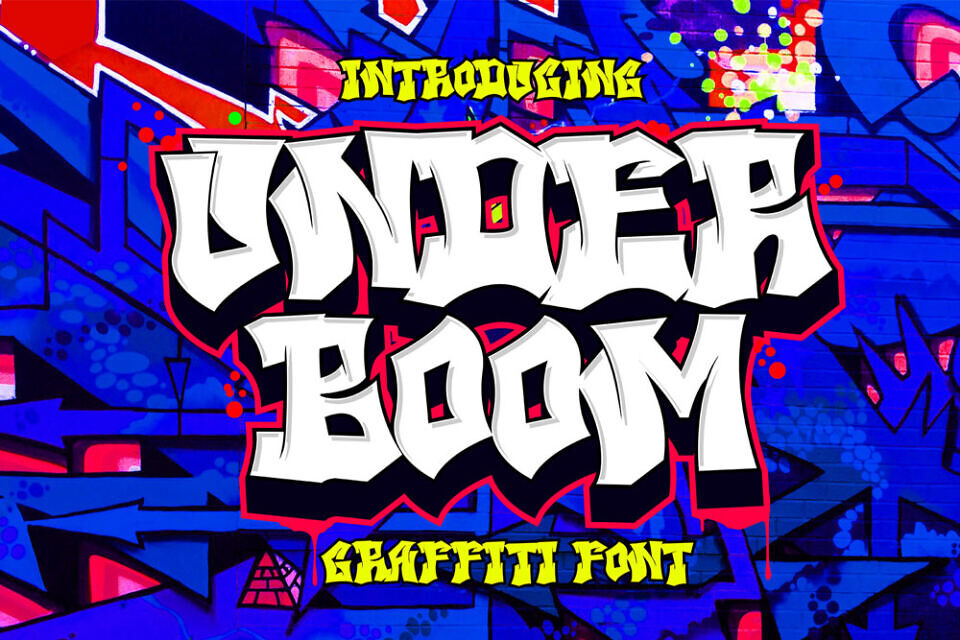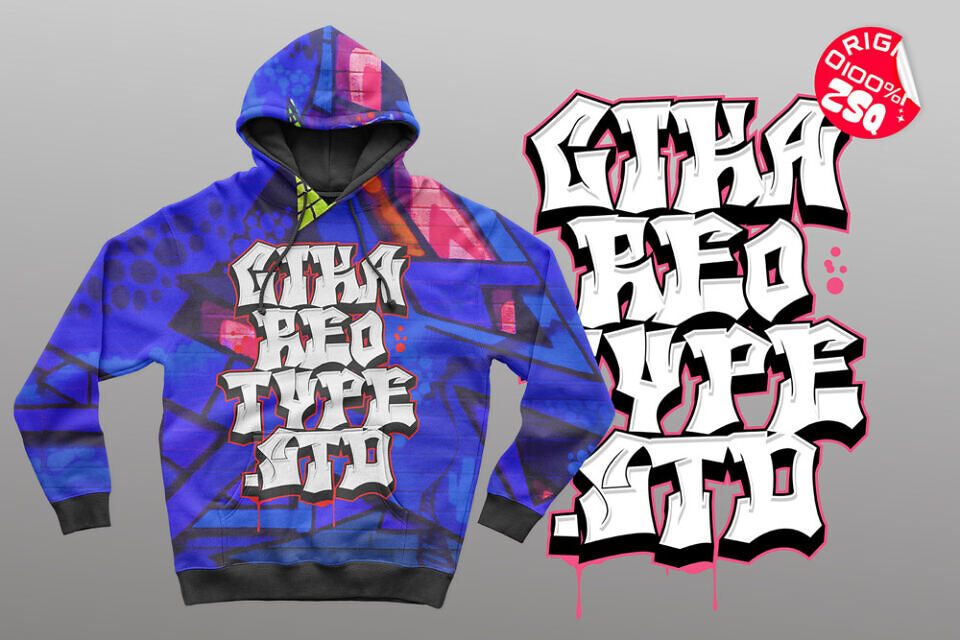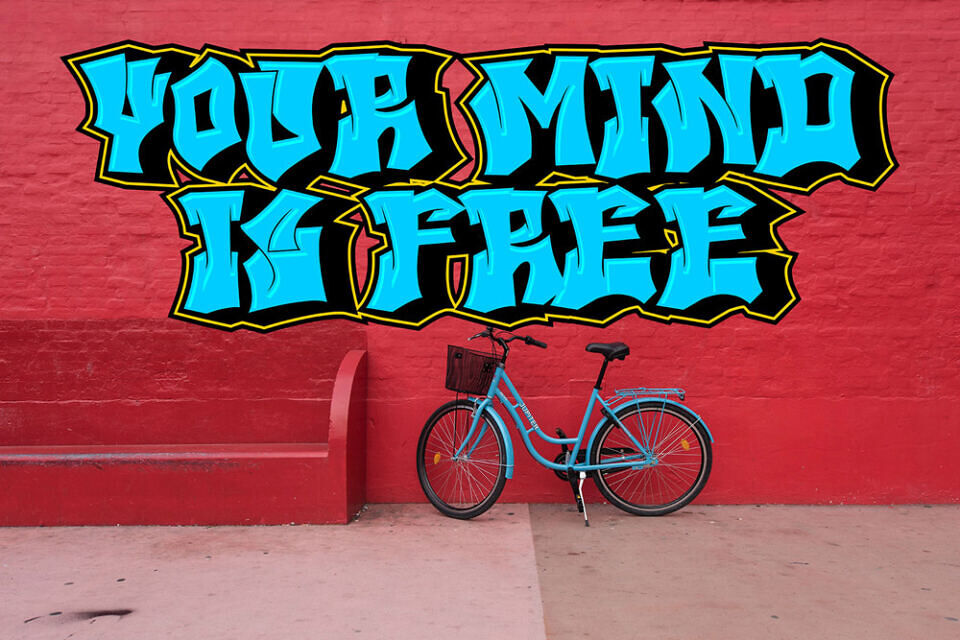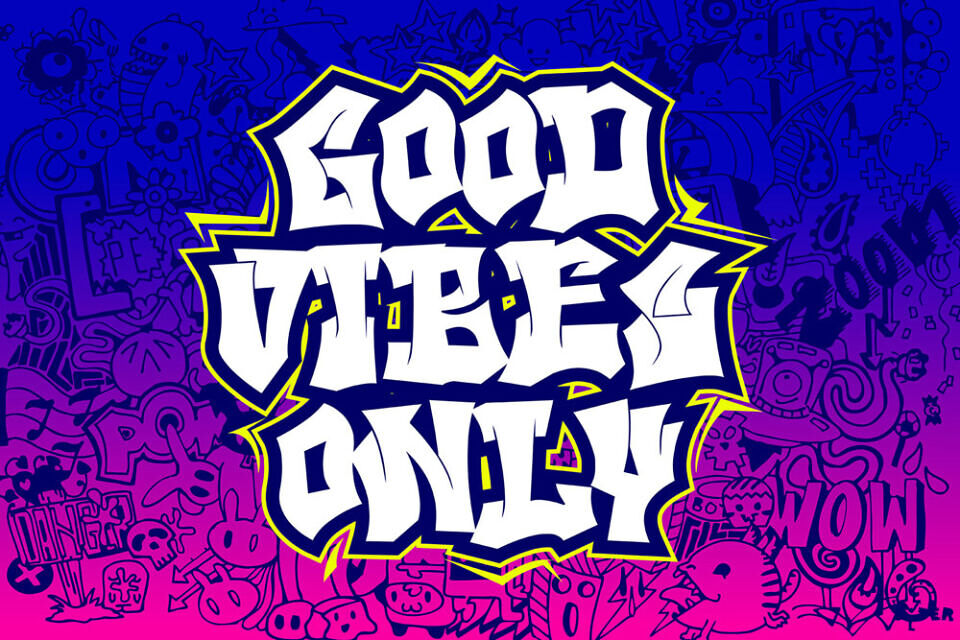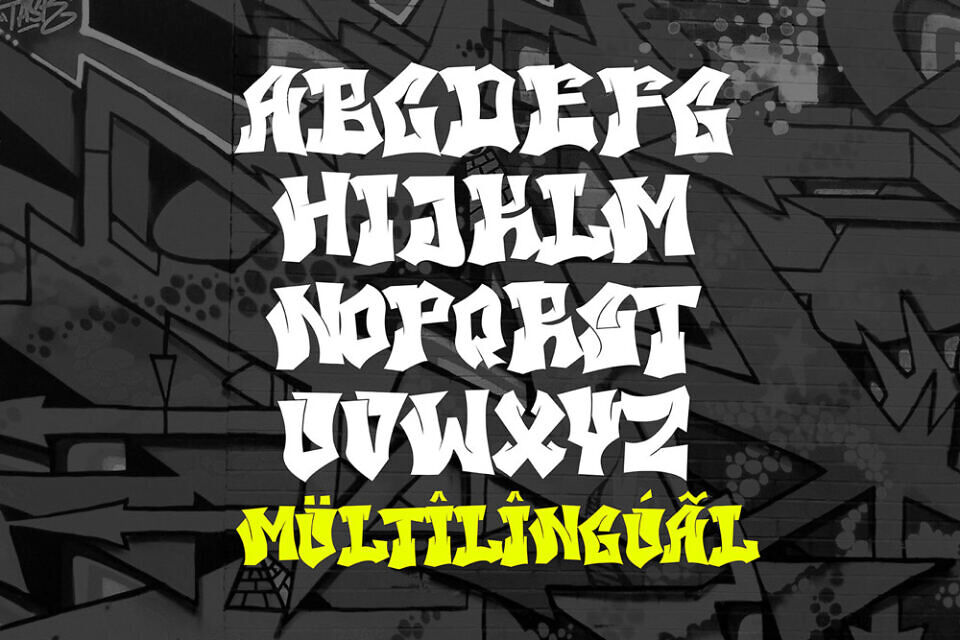
Under Boom is a high-energy graffiti font designed to unleash raw urban expression into your creative projects. Built with aggressive strokes and unpredictable shapes, this wild graffiti font captures the essence of true street bombing culture. Whether you’re creating bold streetwear branding, music artwork, or eye-catching posters, Under Boom graffiti font delivers a powerful and rebellious visual impact.
This urban graffiti font is crafted for designers who want to break the rules and create something unforgettable. With its chaotic yet controlled style, Under Boom transforms ordinary typography into explosive visual statements that demand attention.